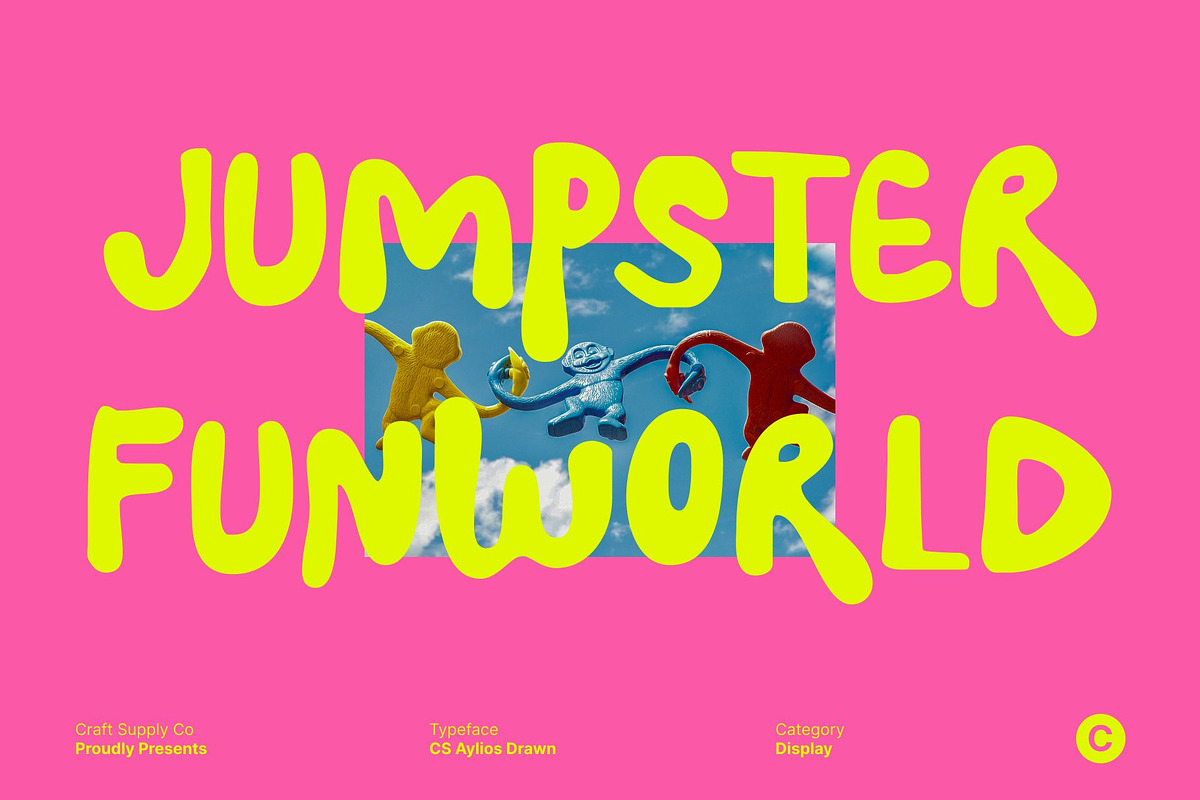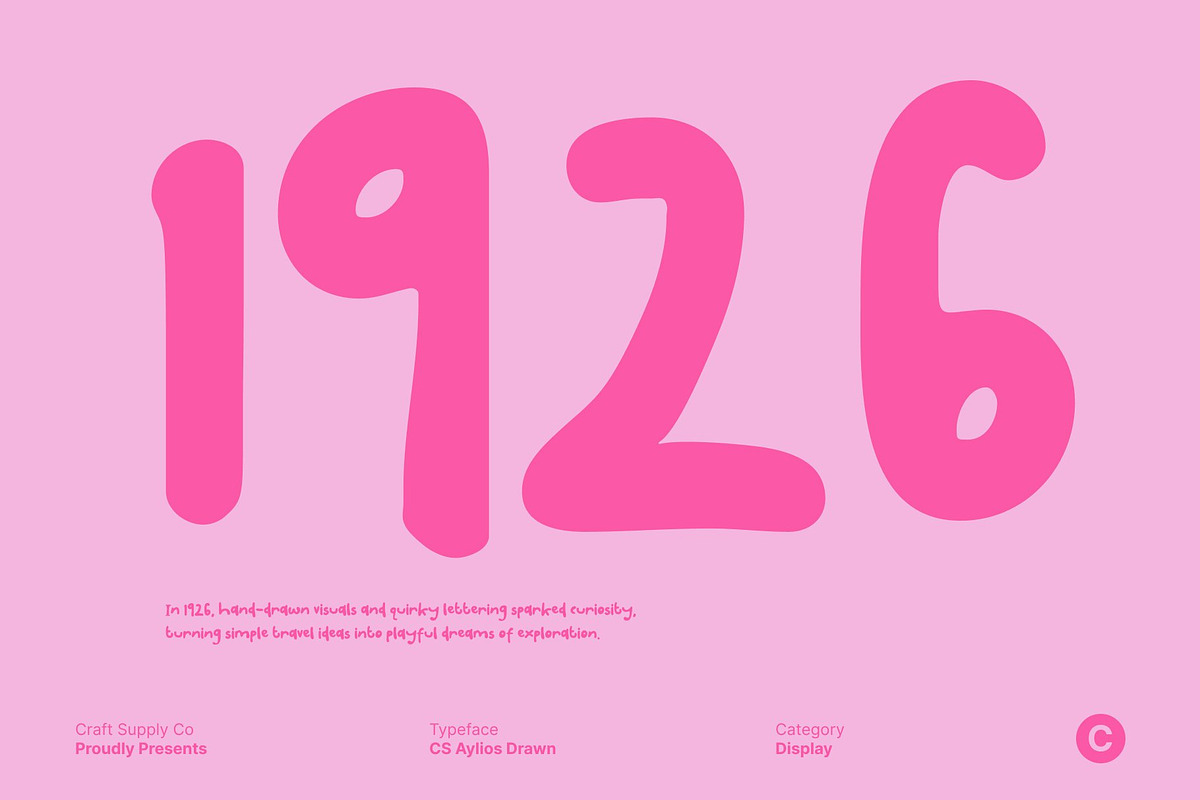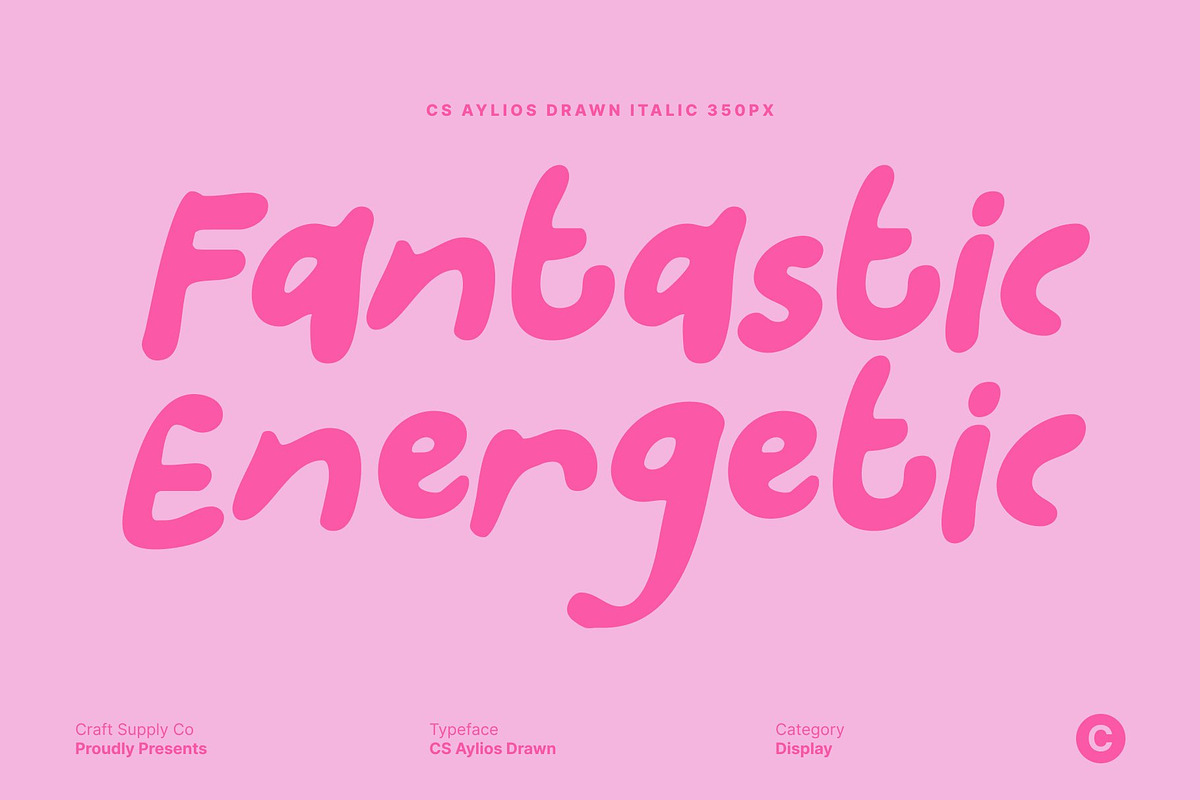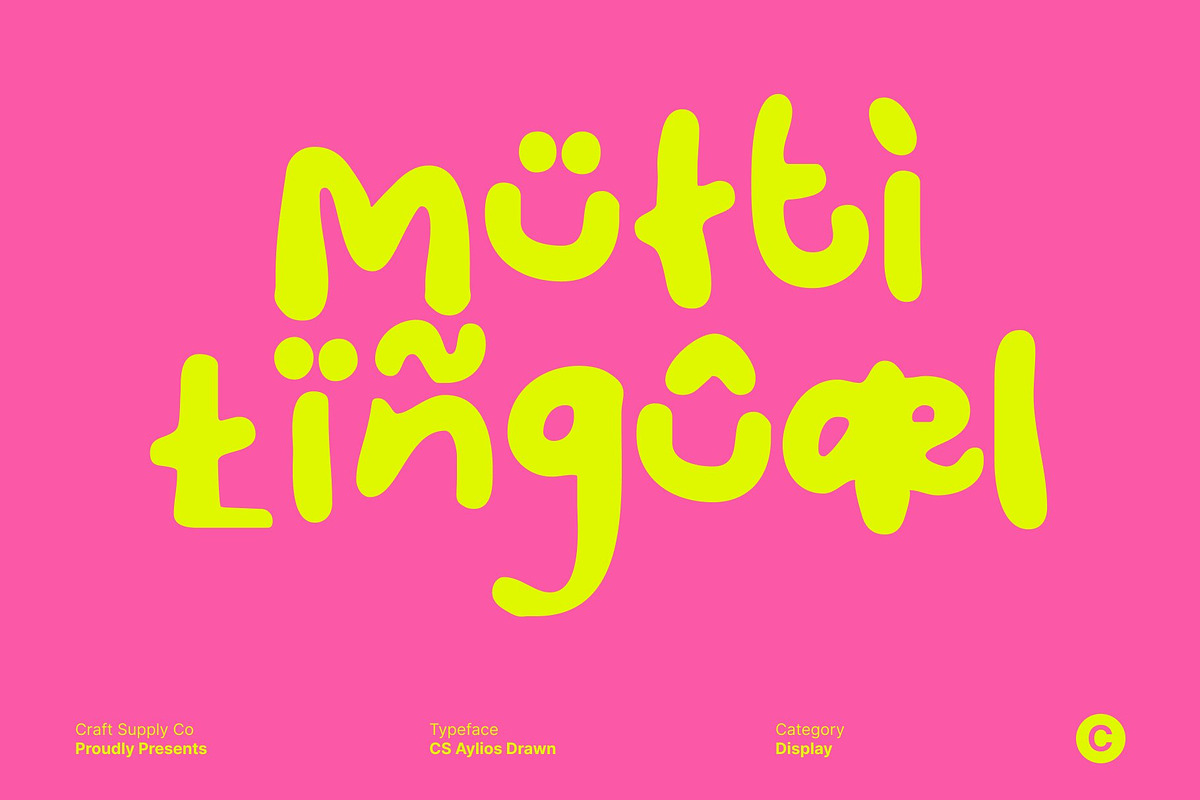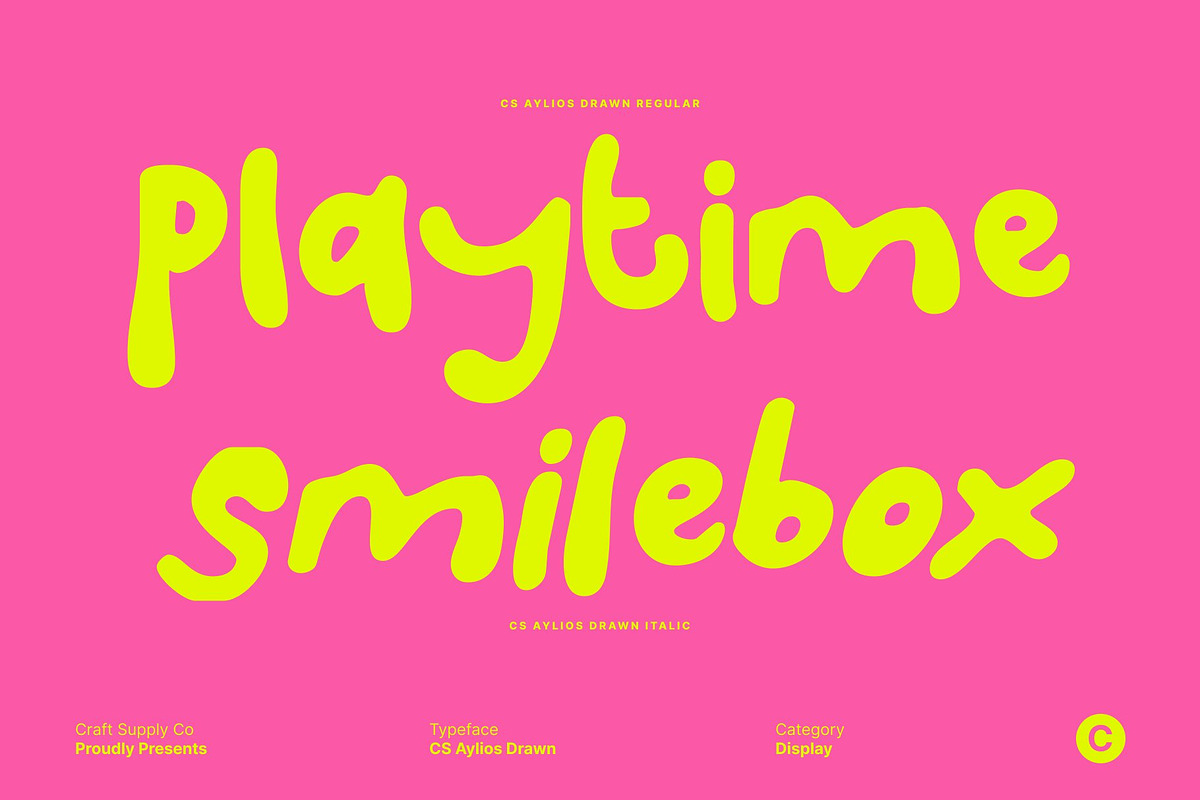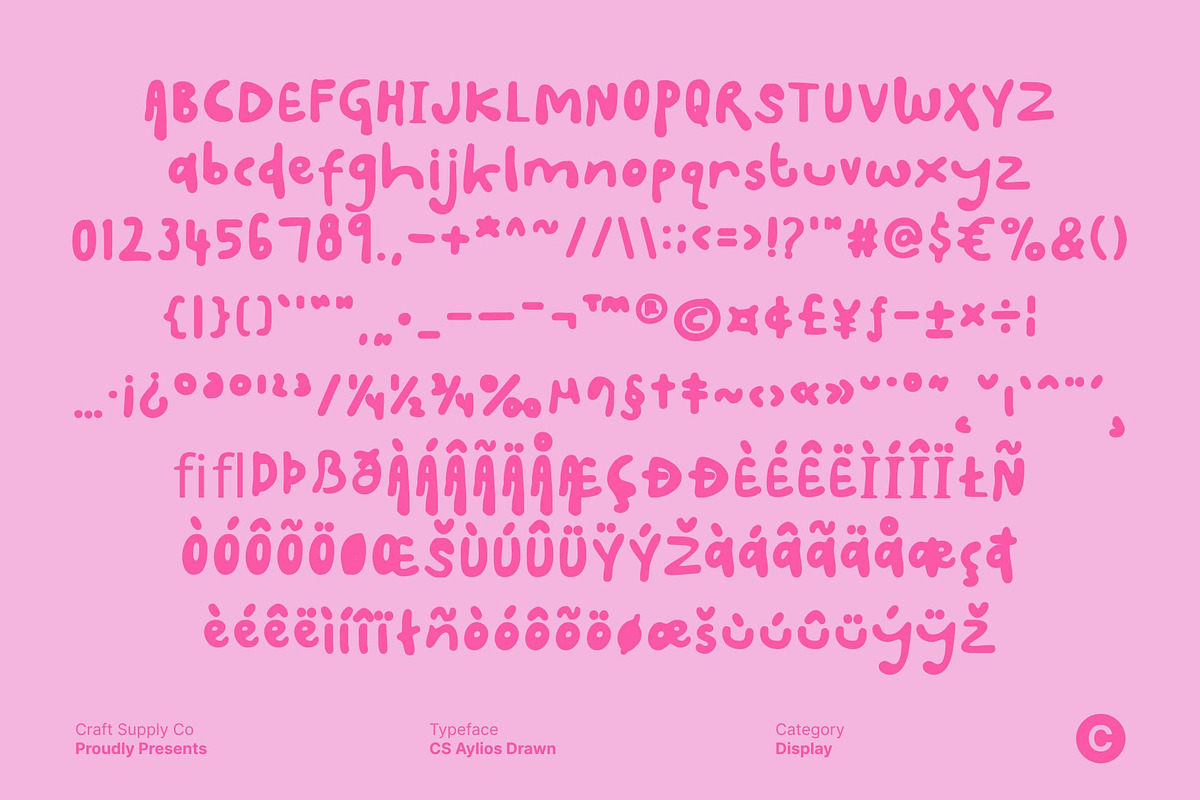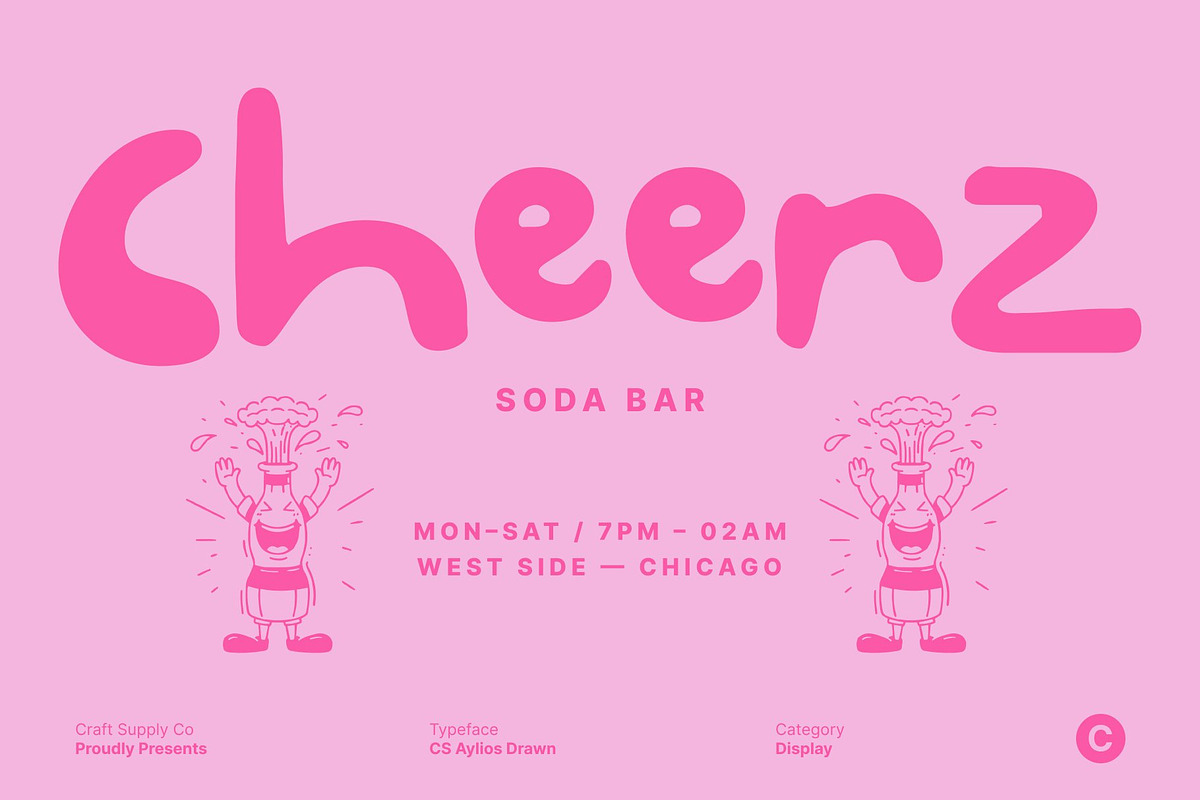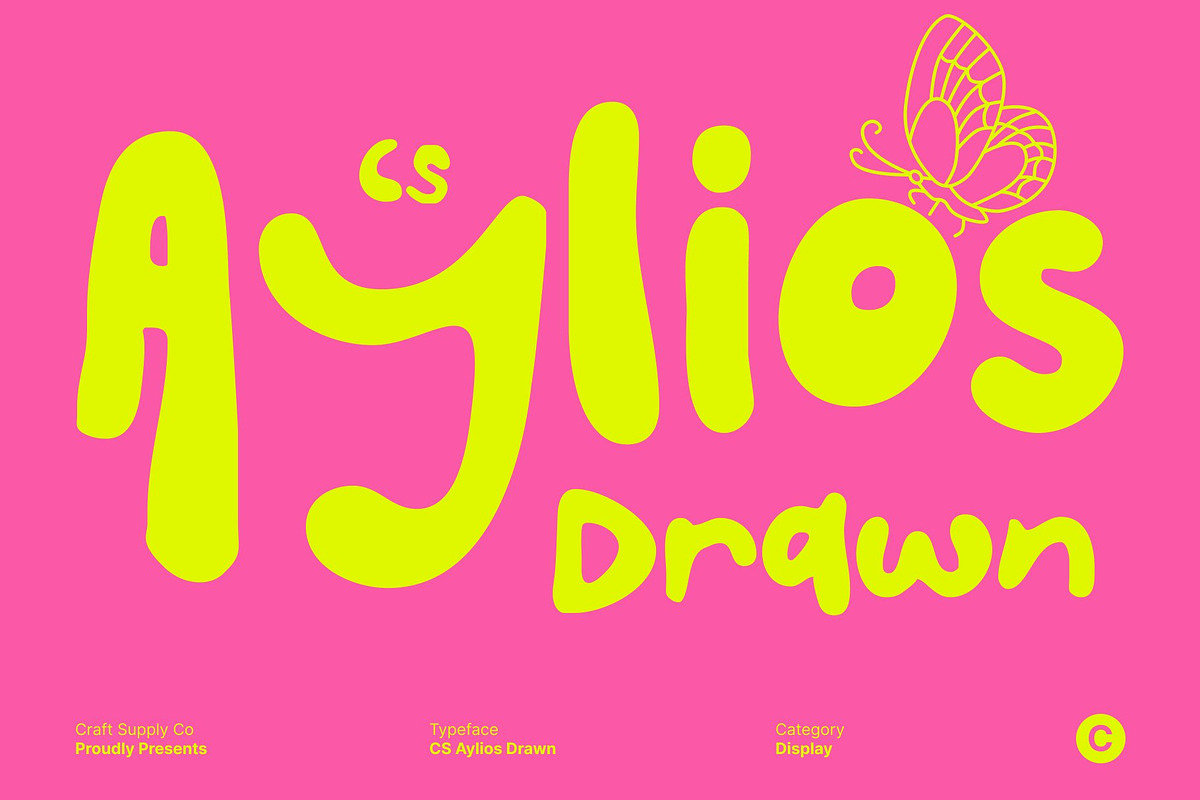
CS Aylios Drawn
CS Aylios Drawn – Funky Hand-Drawn Display Font with Sweet Groovy Charm
Playful Groovy Shapes with Decorative Curves This is a hand-drawn display font bursting with funky energy and joyful personality. Each letter is crafted with bold, playful shapes and flowing curves, creating a lively rhythm that feels expressive and full of movement. Its groovy structure instantly brings a sense of fun and creativity, making every word feel animated and cheerful.
Sweet Cream Inspired Curves for Funky Visual Appeal Inspired by the smooth swirls of sweet cream, this font features soft, decorative curves that feel indulgent and dynamic. The hand-drawn texture enhances its organic charm, giving each character a natural, slightly imperfect look. This combination of creamy flow and funky form makes the font visually rich, playful, and irresistibly eye-catching.
Perfect for Fun Branding and Youthful Visual Identities This font is ideal for brands that want to express warmth, joy, and originality. It works beautifully for logos, packaging, and branding concepts that embrace a youthful, sweet, and creative tone. From cafés and dessert brands to lifestyle labels and kids-focused products, this font adds instant personality.
Ideal for Posters, Social Media, and Creative Display Work Designed for standout display use, this font shines in posters, social media graphics, event visuals, and artistic layouts. Its expressive hand-drawn style and groovy motion make it perfect for bold headlines and decorative typography that aims to feel fun, friendly, and full of charm.